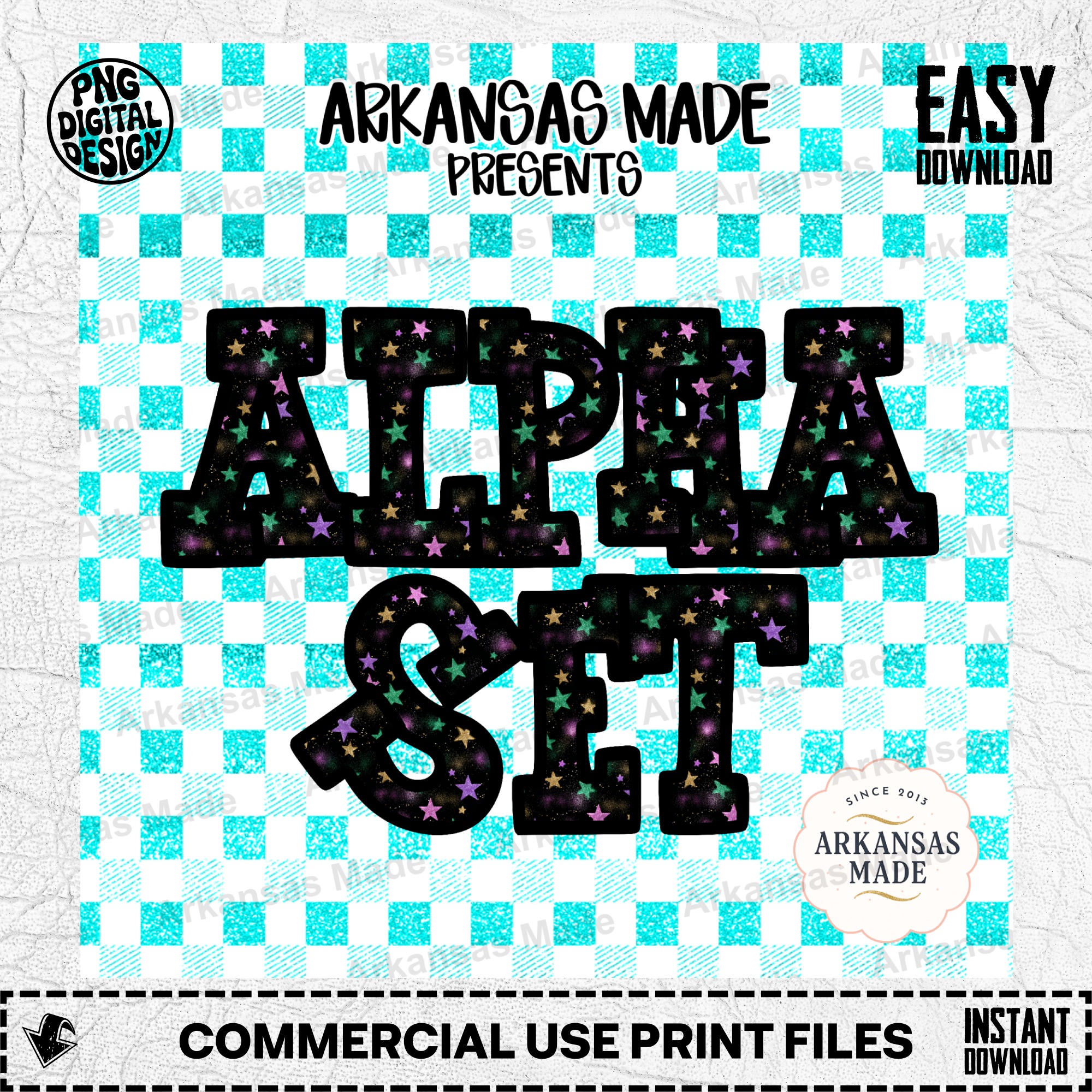
Dive into a starry night with our Galaxy Alphabet PNGs, featuring celestial stars and faux glitter on every letter. Perfect for cosmic crafts! These vibrant, chunky alpha letters bring a playful, galactic sparkle to any project. Each letter is adorned with multi-colored stars and a dazzling faux glitter effect, making them pop. Ideal for crafters, DIY enthusiasts, and small business owners creating personalized items, sublimation designs, or digital artwork. Use for unique birthday decor, nursery prints, custom apparel, or to add a celestial touch to any creative venture.